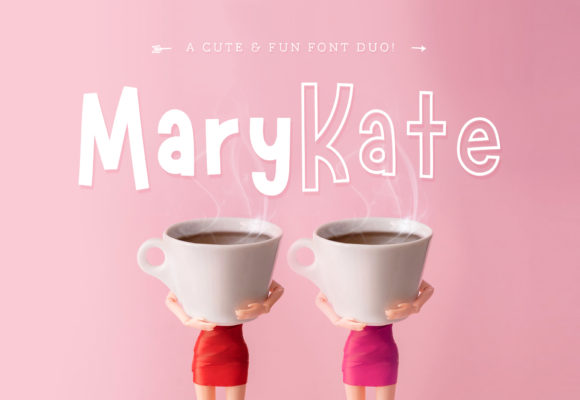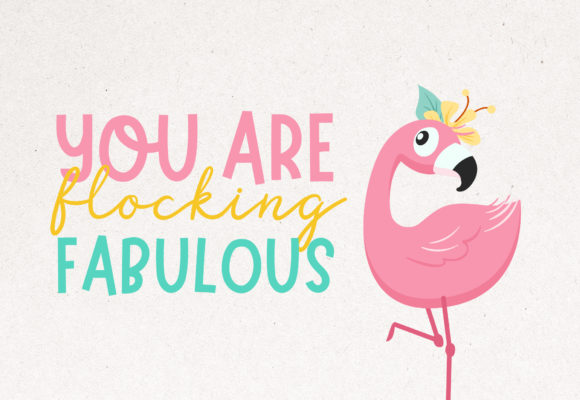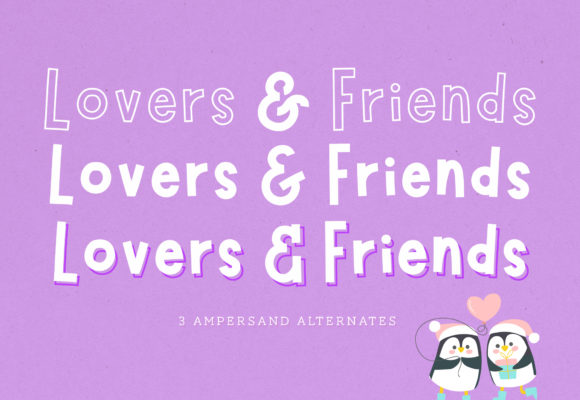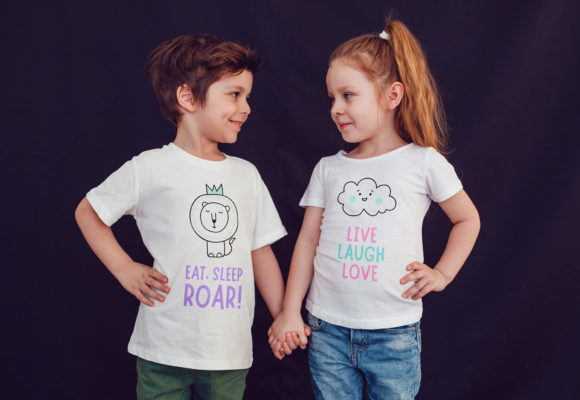
Marykate Font: A Playful & Cute Font Duo for Cricut Crafts & DIY Projects
About the Marykate Font
Add a touch of class to your work with the Marykate Font, a truly exceptional typeface. The Marykate is a playful yet versatile font duo. It comes with a set of solid and outline font files, perfect for any design & craft project!
Ideal for quotes, home decor, wedding invites, blog header, branding, t-shirts, posters & more!
Marykate’s playful energy makes it ideal for headlines, short text blocks on posters or packaging, and branding projects needing a touch of whimsy. It works exceptionally well for invitations and social media graphics. However, its playful forms are less suitable for body text or UI elements requiring high readability. Avoid using it for large blocks of text.
For a balanced aesthetic, pair Marykate with a clean sans-serif like Montserrat for a modern feel, or a classic serif like Garamond for a more timeless contrast. The outline version pairs well with a simple geometric sans-serif for a bold, graphic look.
Marykate’s overall personality is best described as friendly and approachable yet stylish. It’s perfect for brands targeting a younger demographic or those promoting products and services with a lighthearted or celebratory tone.
Marykate Font Usage Examples
Marykate Font Example